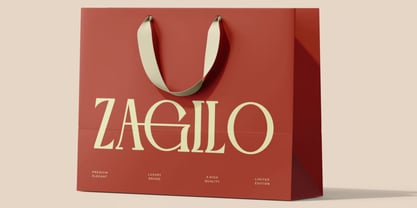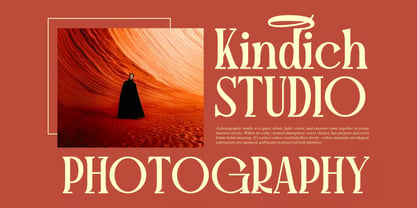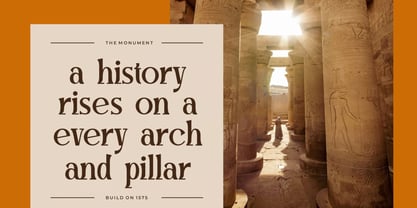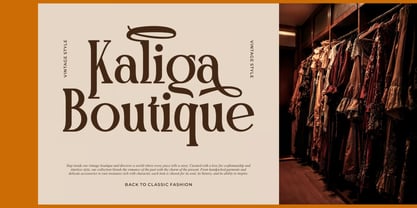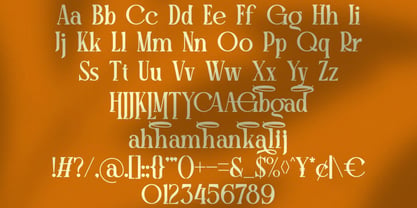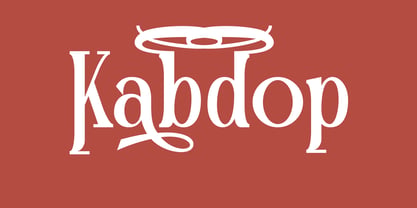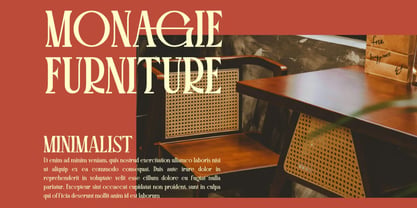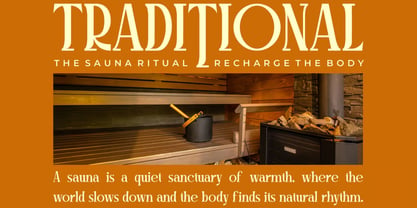
Kabdop
The Kabdop Font Family was designed by Hasnat Khan and published by Hasnat Studio. Kabdop contains 1 styles. More about this family
Kabdop is a modern and classy serif font designed to bring elegance, sophistication, and timeless style to your creative projects. Featuring beautifully crafted letterforms, refined proportions, and stylish ligatures, Kabdop delivers a premium typographic experience that is perfect for both contemporary and luxury-inspired designs.
Combining modern aesthetics with classic serif charm, Kabdop is an ideal choice for branding, logo design, invitation cards, business cards, book covers, movie titles, product packaging, fashion branding, editorial layouts, and social media graphics. Its smooth and polished appearance creates a strong visual presence while maintaining excellent readability and versatility.
Whether you're creating a luxury brand identity, designing elegant marketing materials, or crafting eye-catching headlines, Kabdop provides the sophistication and professionalism needed to make your work stand out.
✿ Key Features:
• Modern Classy Serif Design: Elegant letterforms with a refined and contemporary touch.
• Beautiful Ligatures: Stylish character connections that enhance typography.
• Uppercase & Lowercase Letters: Complete character set for versatile design applications.
• Numbers & Punctuation: Essential symbols for professional and creative projects.
• Smooth & Sophisticated Appearance: Perfect for luxury and high-end branding.
• Balanced Typography: Designed for readability and visual harmony.
• Premium Quality Craftsmanship: Suitable for both print and digital media.
✿ Perfect For:
• Branding & Logo Design: Create memorable and luxurious brand identities.
• Invitation & Wedding Designs: Add elegance and sophistication to special occasions.
• Book Covers & Editorial Layouts: Perfect for magazines, novels, and publishing projects.
• Movie Titles & Posters: Create striking and stylish display typography.
• Business Cards & Corporate Branding: Enhance professionalism and visual appeal.
• Packaging & Product Labels: Ideal for fashion, beauty, lifestyle, and luxury products.
• Social Media & Advertising: Design captivating promotional graphics and marketing materials.
Transform your creative vision with Kabdop—a modern and classy serif font that blends luxury, elegance, and versatility. Perfect for branding, logos, editorials, packaging, invitations, and premium design projects, Kabdop helps you create stunning visuals with timeless appeal.